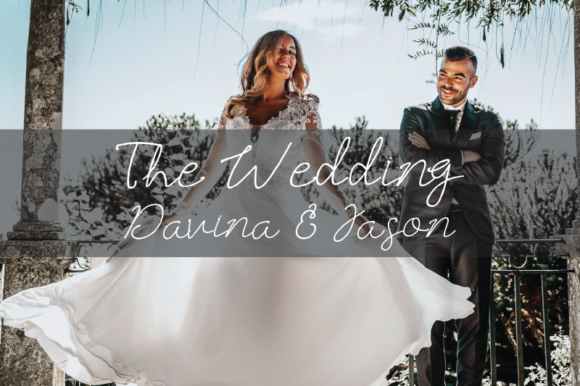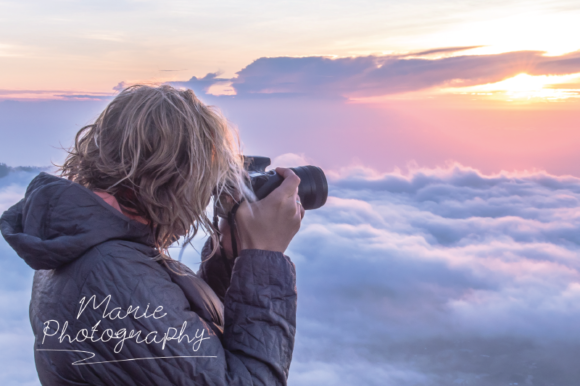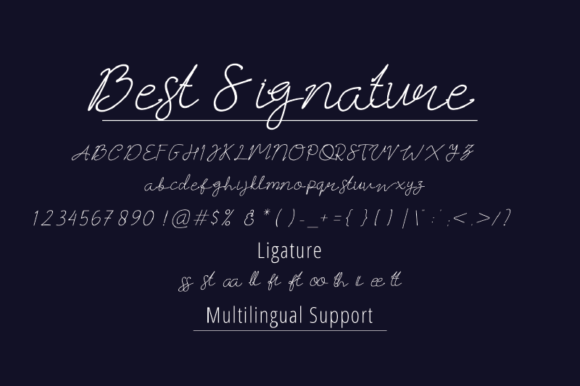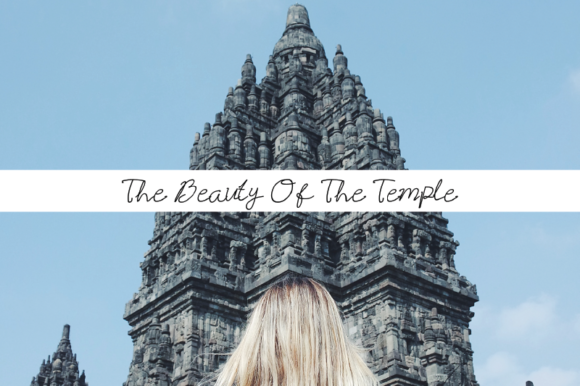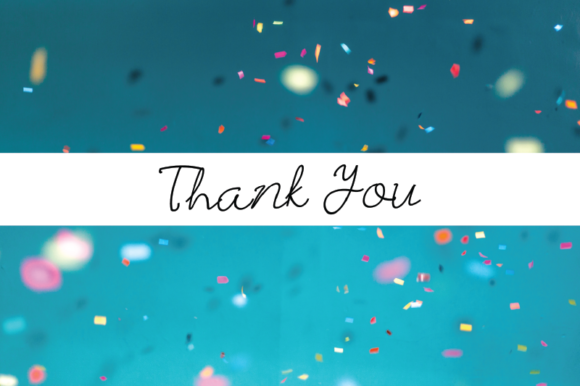
Best Signature Font
About Best Signature Font
Best Signature is a classic and fun script font with a contemporary feel. Use it to add an authentic touch to any creative idea!